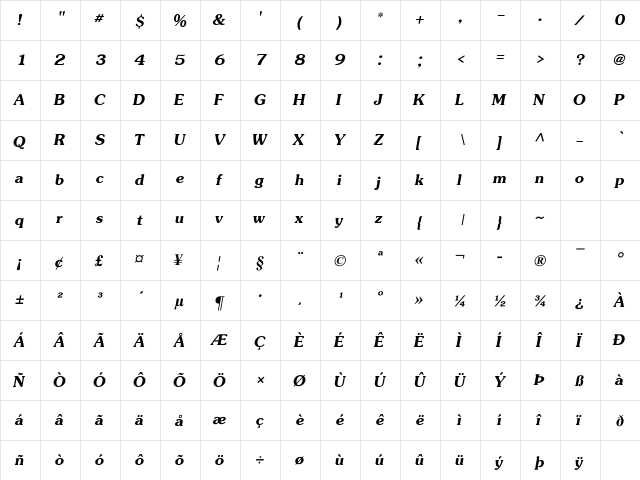
JasmineUPC Bold Italic
Design Context for JasmineUPC Typeface
JasmineUPC takes a measured approach to typography — its balanced proportions and neutral character make it a reliable workhorse for both digital and print work. Its italic angle brings a sense of urgency and motion to the letterforms. The heavy weight commands attention and anchors typographic hierarchies.
Pro Tip: Try JasmineUPC for annotation and caption copy alongside an upright companion — the contrast in angle creates a dynamic but ordered typographic system.